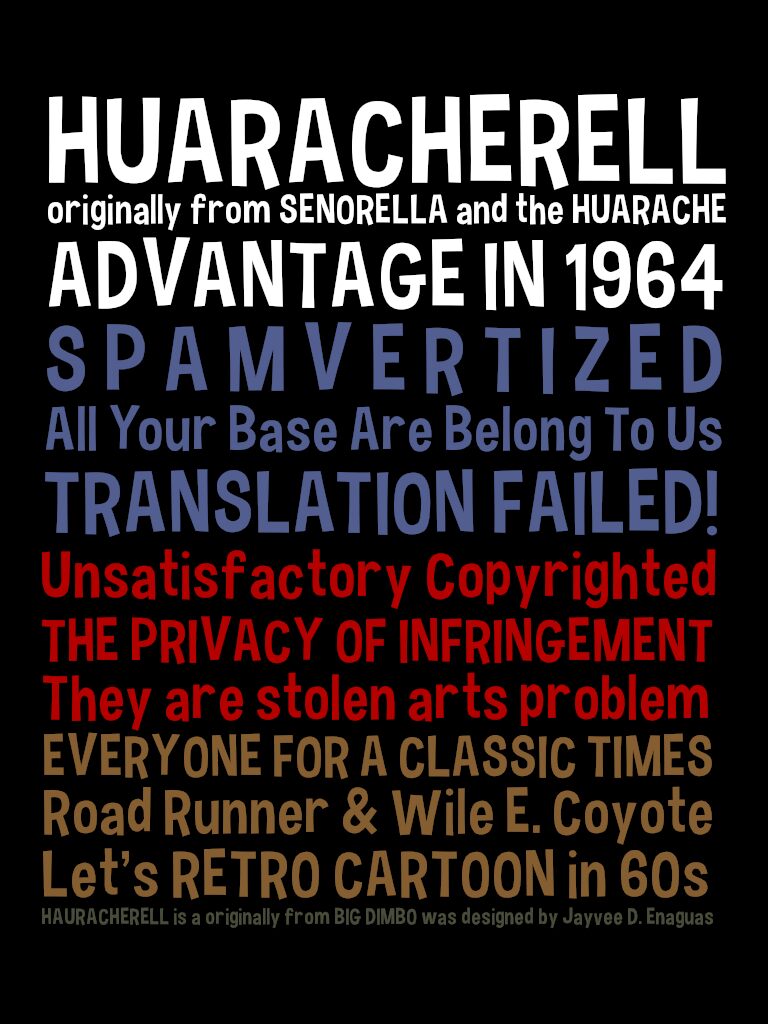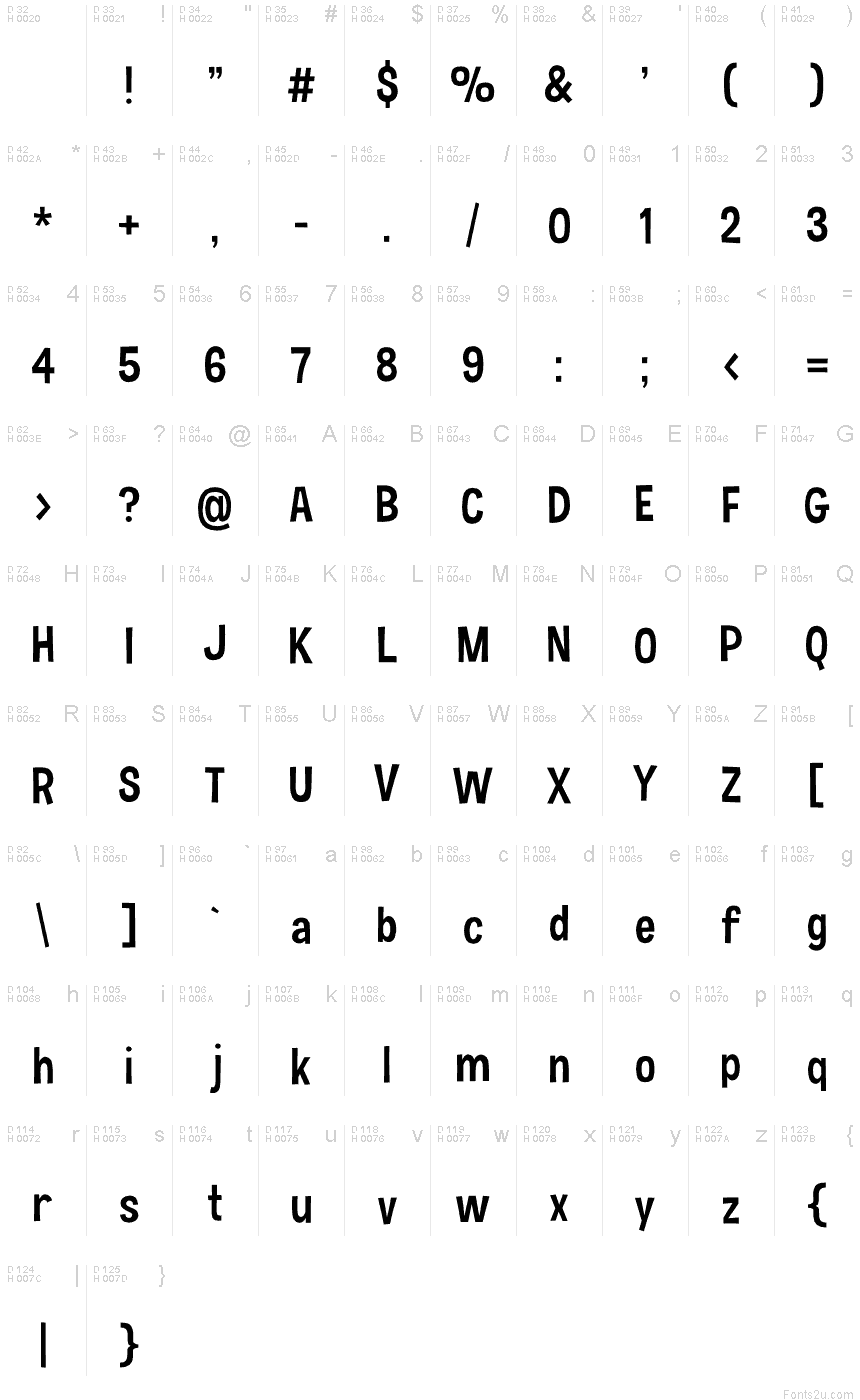
Hauracherell NC by Nippon Central FontMasters, Inc. is a free irregular sans serif with tall, tightly packed letters and a lively hand-cut silhouette. Uneven widths, slanted crossbars, and gently wavering strokes keep the forms informal without losing their force.
Posters are its strongest setting, especially for independent music, comedy, or community events. The same unruly shapes suit album covers, festival merchandise, and playful food packaging. Their cut-paper quality echoes collage, rough illustration, and handmade label art.